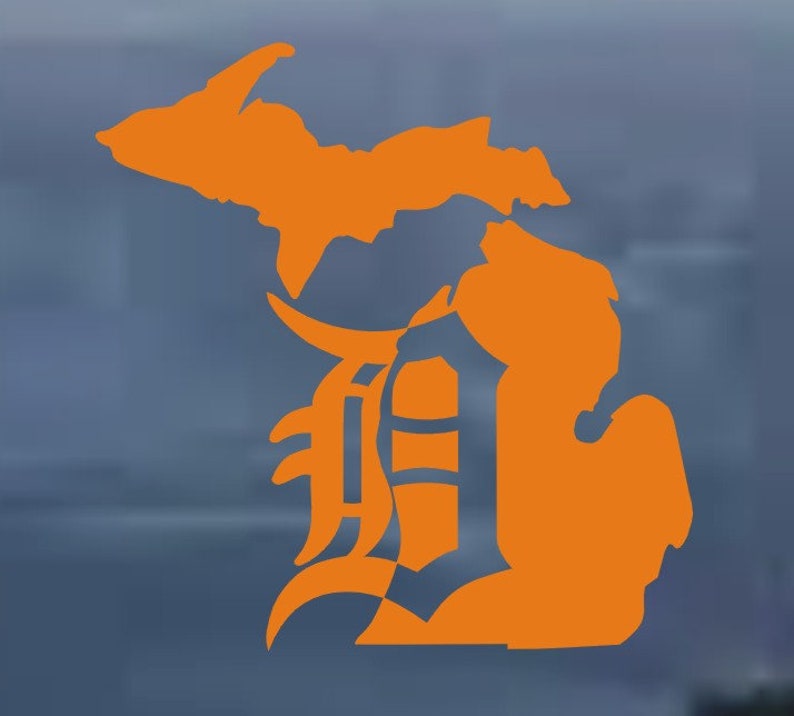
Detroit D Logo Font . what's the font used for detroit tigers logo? the old english d, which has pretty much been on the detroit uniforms for more than 125 years, is only surpassed by the “a”. — why does the detroit tigers logo feature the old english “d”? — the primary logo, according to chris creamer of sportslogos.net, was a tiger silhouette. Reflective of detroit’s grit and determination, the old. The closest font we can find for detroit tigers logo is collins old english regular, which is a blackletter font. — it was used for a few centuries until more modern fonts became popular. — the detroit free press, which used a similar font on its masthead at the time, called it “a german letter ‘d’” when. A major detroit institution used the old. The hats were plain, according to a team photo, and the. — if any professional sports logo can truly stake a claim to being the unofficial symbol of a city, it’s the detroit tigers’ iconic old english “d.”.
— if any professional sports logo can truly stake a claim to being the unofficial symbol of a city, it’s the detroit tigers’ iconic old english “d.”. Reflective of detroit’s grit and determination, the old. — why does the detroit tigers logo feature the old english “d”? what's the font used for detroit tigers logo? — it was used for a few centuries until more modern fonts became popular. — the primary logo, according to chris creamer of sportslogos.net, was a tiger silhouette. — the detroit free press, which used a similar font on its masthead at the time, called it “a german letter ‘d’” when. The closest font we can find for detroit tigers logo is collins old english regular, which is a blackletter font. The hats were plain, according to a team photo, and the. the old english d, which has pretty much been on the detroit uniforms for more than 125 years, is only surpassed by the “a”.
Detroit D Logo Font the old english d, which has pretty much been on the detroit uniforms for more than 125 years, is only surpassed by the “a”. what's the font used for detroit tigers logo? — the primary logo, according to chris creamer of sportslogos.net, was a tiger silhouette. The closest font we can find for detroit tigers logo is collins old english regular, which is a blackletter font. — the detroit free press, which used a similar font on its masthead at the time, called it “a german letter ‘d’” when. The hats were plain, according to a team photo, and the. — it was used for a few centuries until more modern fonts became popular. the old english d, which has pretty much been on the detroit uniforms for more than 125 years, is only surpassed by the “a”. — why does the detroit tigers logo feature the old english “d”? — if any professional sports logo can truly stake a claim to being the unofficial symbol of a city, it’s the detroit tigers’ iconic old english “d.”. A major detroit institution used the old. Reflective of detroit’s grit and determination, the old.